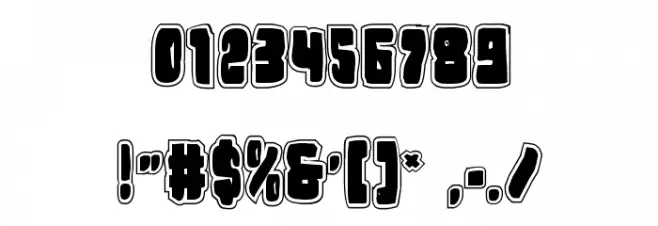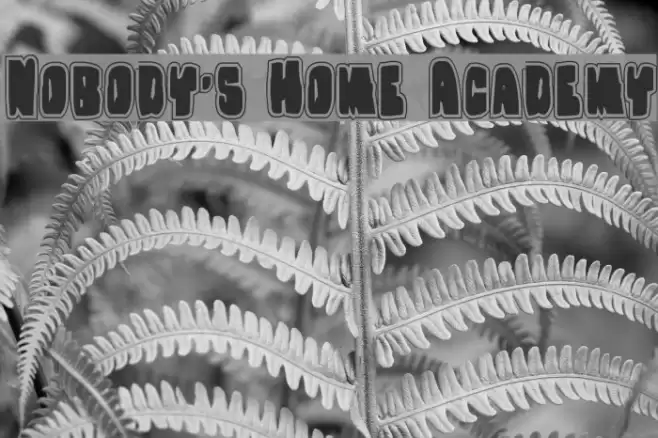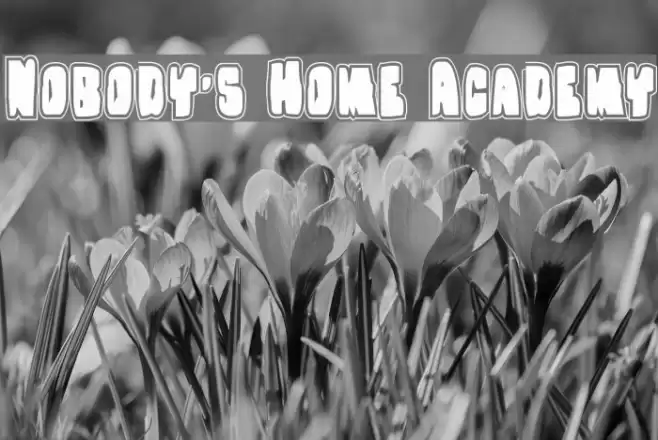
Nobody's Home Academy Font
Nobody's Home Academy Description
This font features a bold, playful style with a thick outline that gives each character a distinct, cartoonish appearance. The letters are uppercase and lowercase, with a consistent width and a slightly rounded form that adds a friendly and approachable feel. The numbers and special characters maintain the same boldness and outline, ensuring uniformity across all elements. The font's design is eye-catching and ideal for projects that require a fun and lively aesthetic.
A bold, playful font with thick outlines and a cartoonish style from Uncategorized fonts.
• Proposed Projects: Ideal for children's books, comic strips, playful branding, and eye-catching posters.
• Overall Style: Playful, Cartoonish
• Use Case: Headlines, Logos, Posters